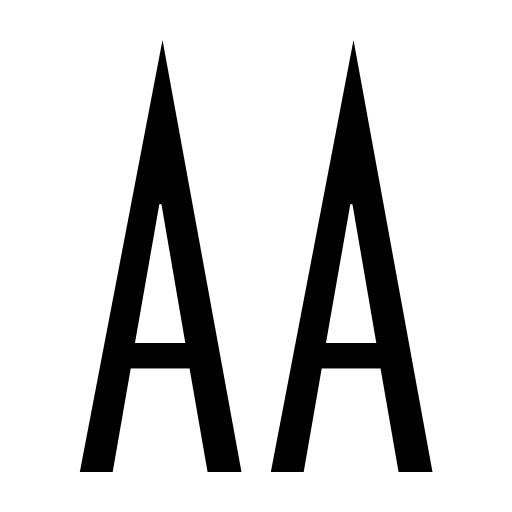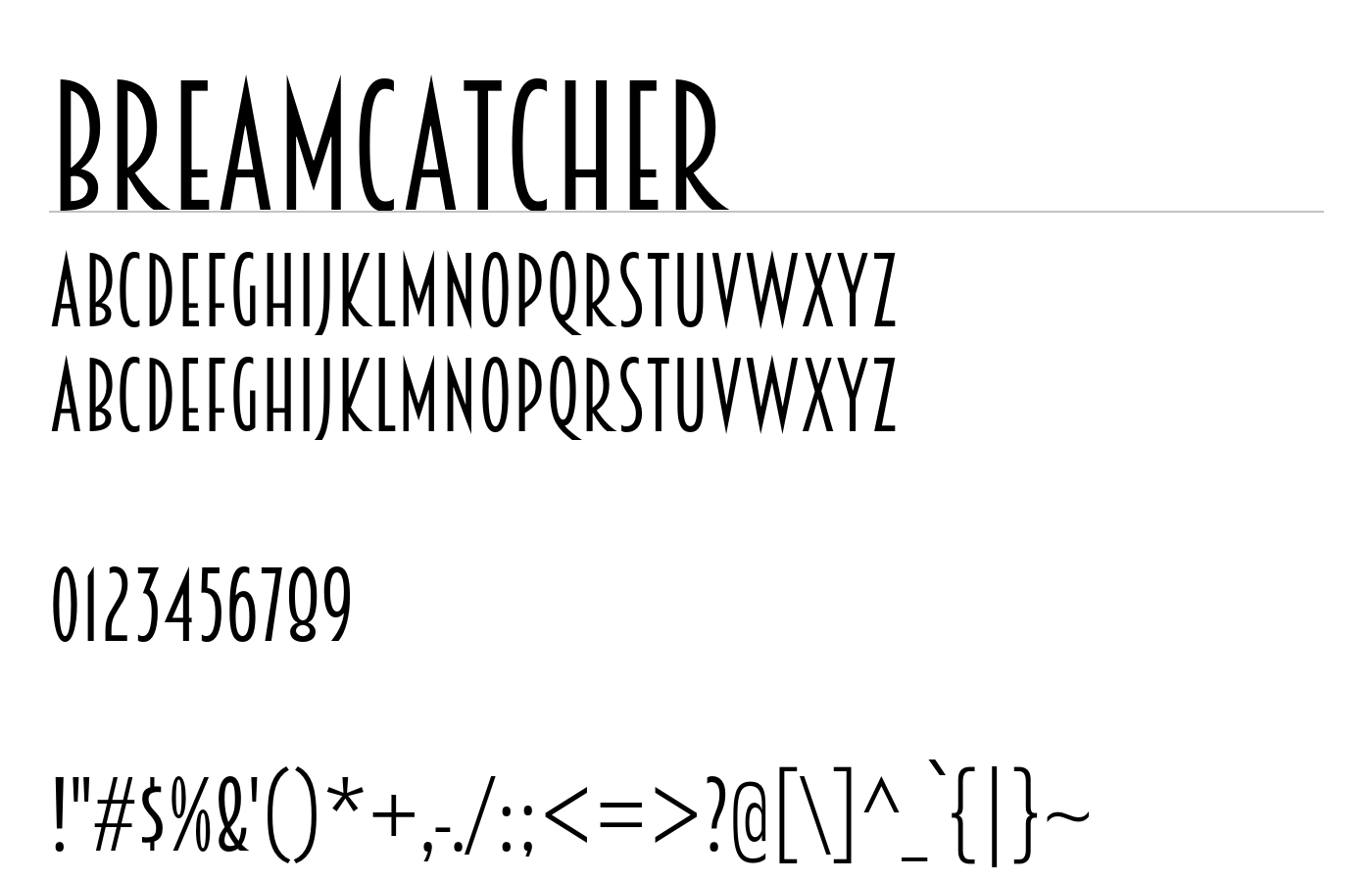
Breamcatcher is a tall, narrow sans serif font with a modern, art deco-inspired style. Its consistent thin strokes and elongated letterforms create a sleek, elegant feel that works well for stylish headlines, branding, and logos where a sophisticated and contemporary look is desired. This font’s clean geometry and distinctive character shapes make it perfect for fashion, editorial, and high-end design projects seeking a refined yet eye-catching appearance.
Breamcatcher Font
About Breamcatcher Font
| Font family | Breamcatcher Font |
| Designer | Ray Larabie |